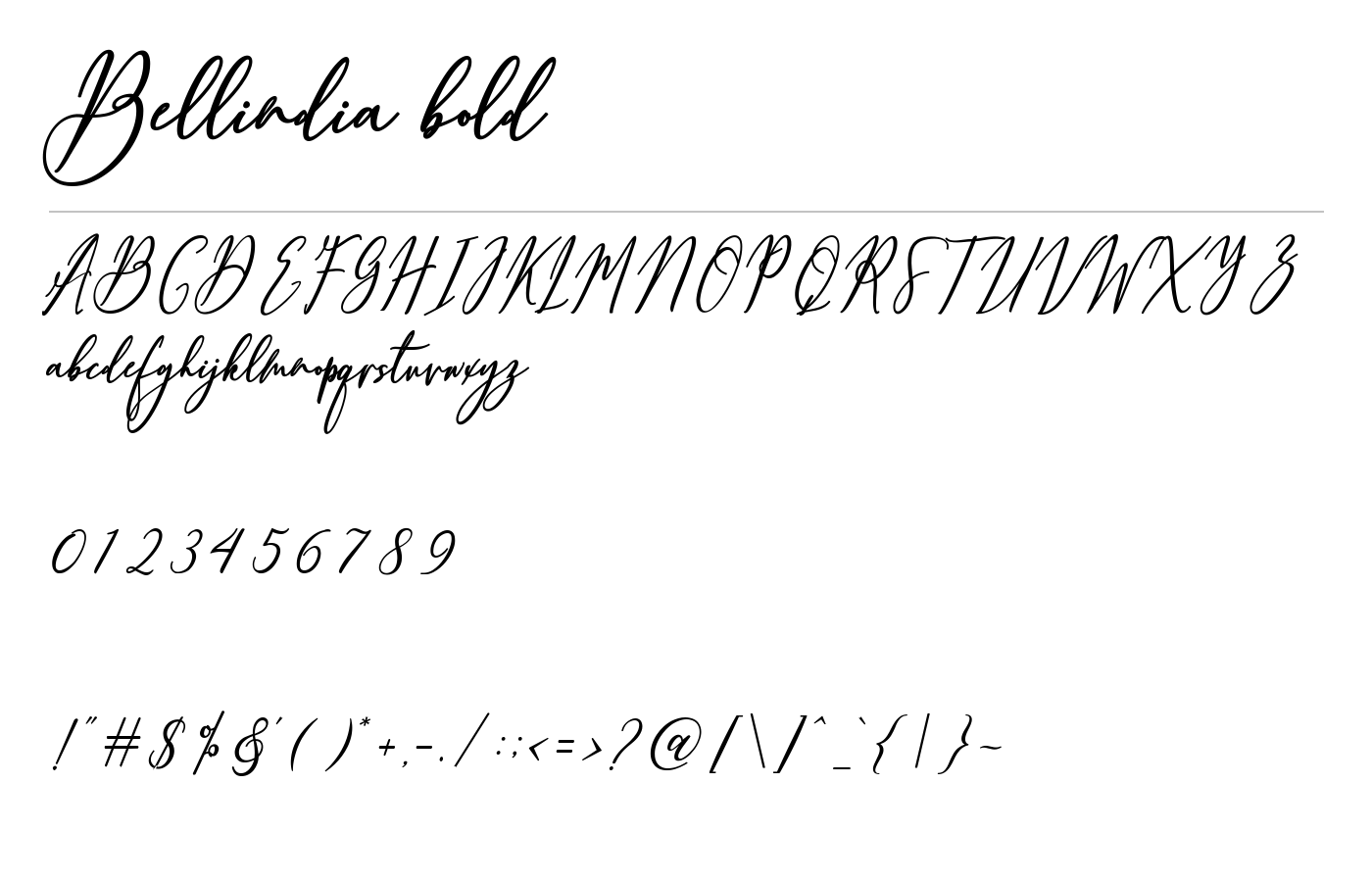
Bellindia Bold is an elegant, script-style font with a strong calligraphic flair, featuring bold strokes and graceful curves that create a sense of sophistication and artistic charm. Its fluid letterforms, combined with a moderate contrast in stroke weight, make it ideal for luxury branding, invitations, and stylish headlines where a personal, handcrafted touch is desired. This font brings a refined yet expressive personality that works beautifully in fashion, beauty, and creative design contexts.
Bellindia bold Font
About Bellindia bold Font